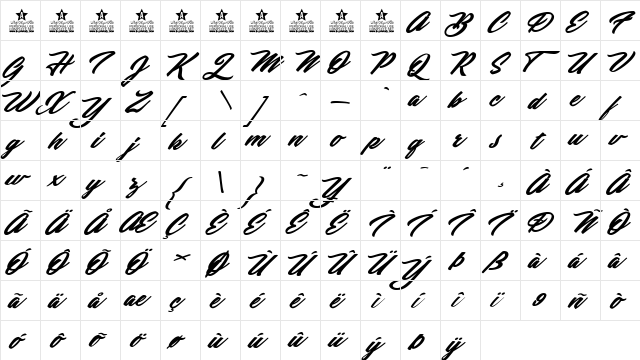
United Forces Personal Use Regular
Design Context for United Forces Personal Use Typeface
United Forces Personal Use brings high-energy athletic personality to the page — its confident, muscular forms are built for impact.
Built for sports team identities, athletic apparel, event posters, and high-energy promotional material.
Pro Tip: United Forces Personal Use thrives on contrast — try it large, bold, and tight against a clean background for maximum visual impact.